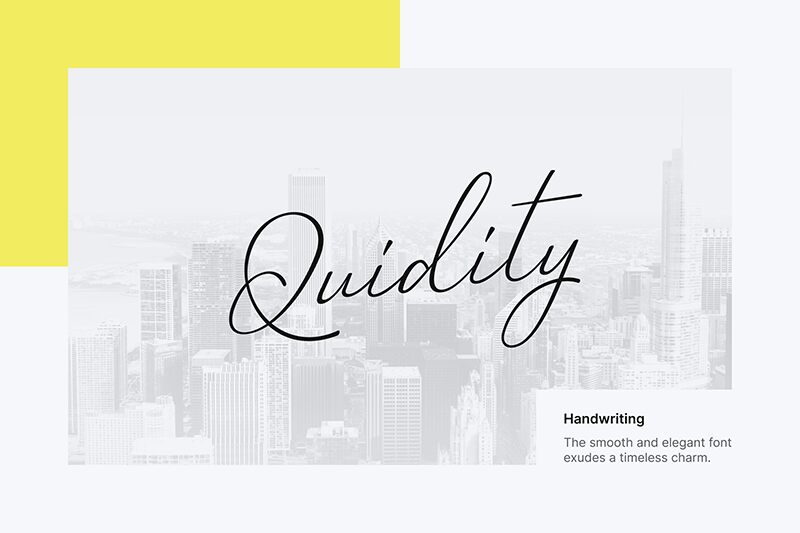
Quidity font family by Aantebas is a beautiful handwritten free font family with an elegant and sophisticated look. Its flowing, graceful lettering is inspired by natural accounts with a timeless charm. The font types are practical in contemporary applications in luxury branding, invitations, packaging design, and much more.
Use this typeface in making elegant magazine covers, personal business cards, handwritten signature logos, and online Soft skill magazine covers will also look and feel valuable with Quidity.
Quidity is a timeless blend of elegance and personality, embodying the essence of classic signatures and cursive artistry. This free font is ideal for displays, invitations, and for adding a touch of sophistication to any project. Quidity seamlessly combines the grace of cursive with the unique charm of personalized handwriting.
Elevate your designs with this versatile font that effortlessly balances classic appeal with a modern touch.